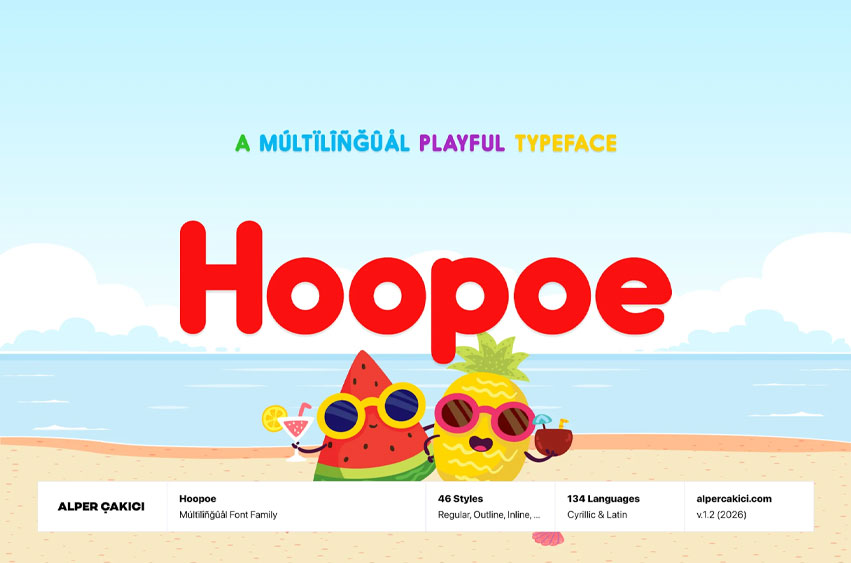
Hoopoe Font is a rounded geometric sans serif designed with warmth and clarity in mind. Its soft curves and balanced proportions give it a friendly, approachable tone while maintaining a clean, modern structure. Built on geometric foundations, Hoopoe delivers consistency across every letterform, making it highly versatile for both digital and print environments.
With an extensive range of 46 styles—from clean Regular and Italic to expressive Brush, Rough, Pencil, Outline, Rimmed, Inline variants— Hoopoe gives designers complete creative flexibility.
With support for both Latin and Cyrillic scripts, Hoopoe is crafted for multilingual use, allowing designers to maintain a cohesive voice across different regions and audiences.
Hoopoe’s “cute” yet structured appearance makes it ideal for contemporary projects that need a touch of softness without losing professionalism.